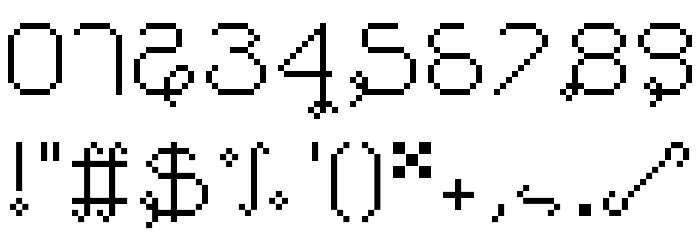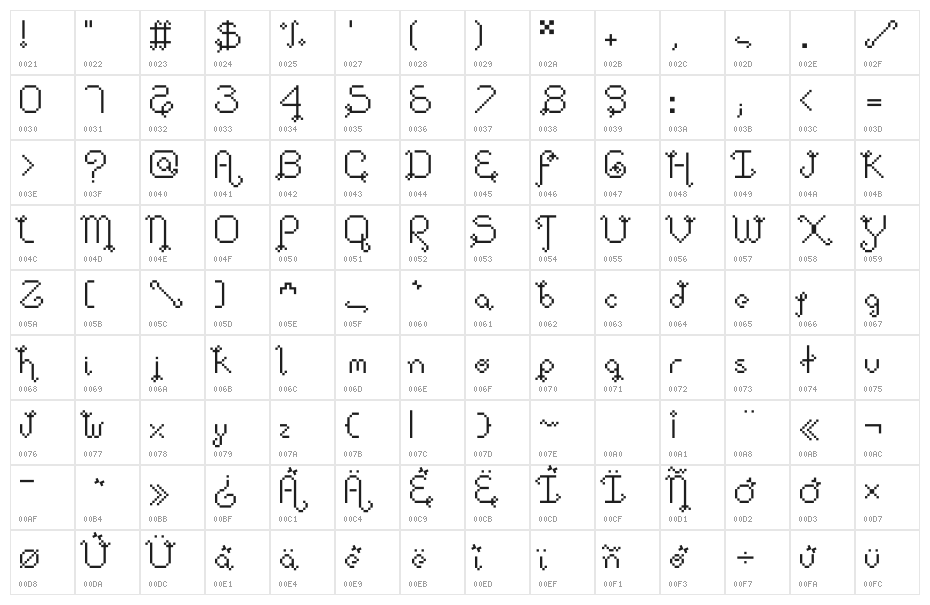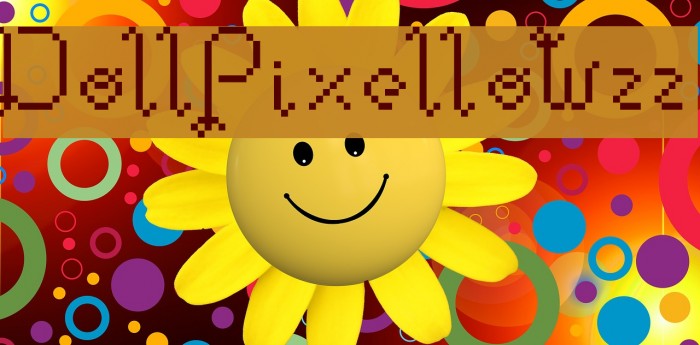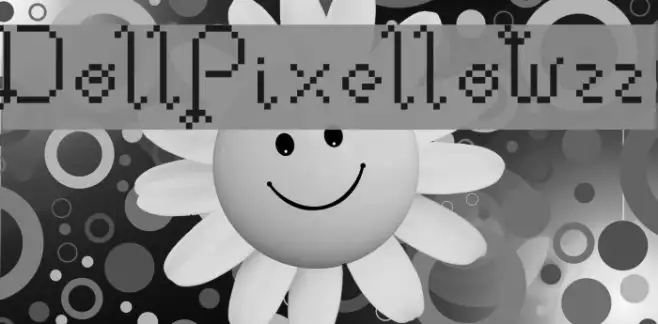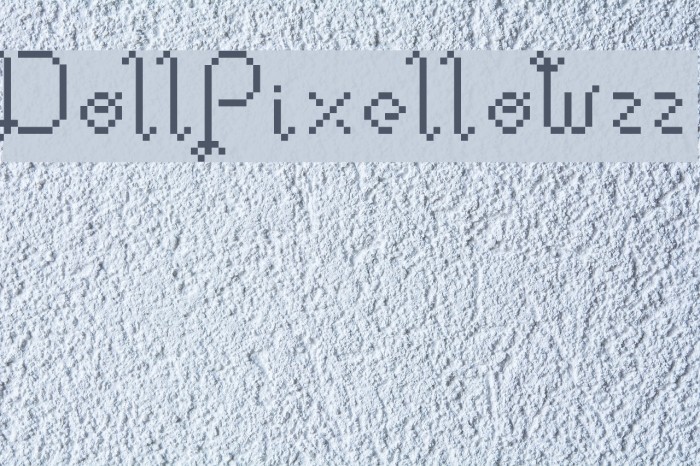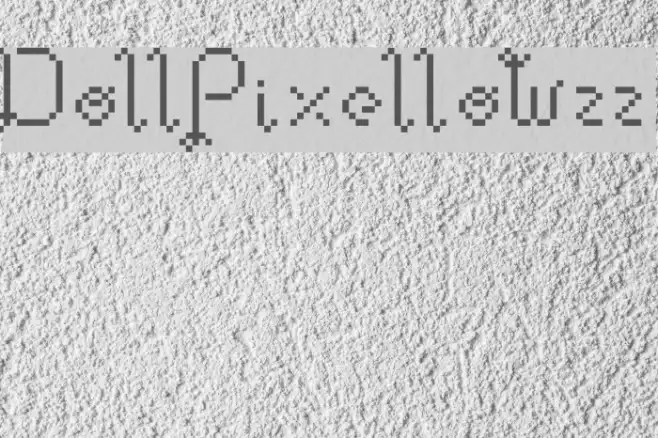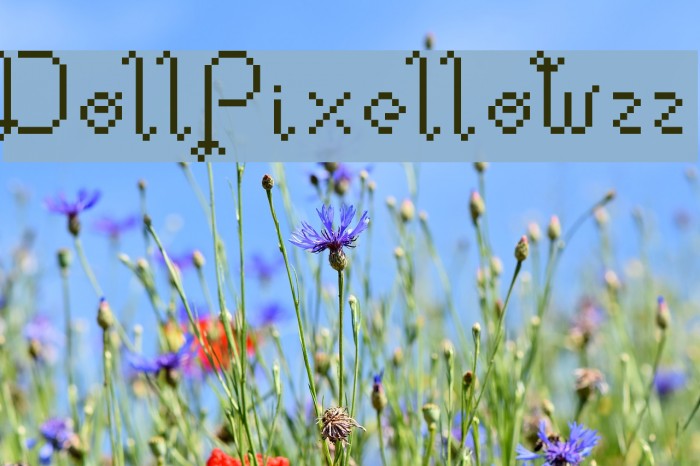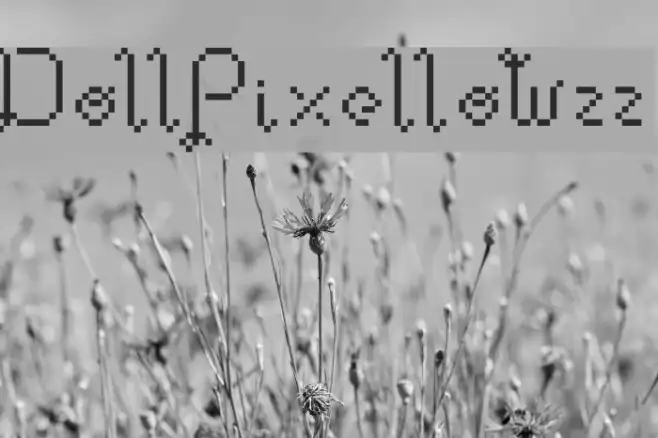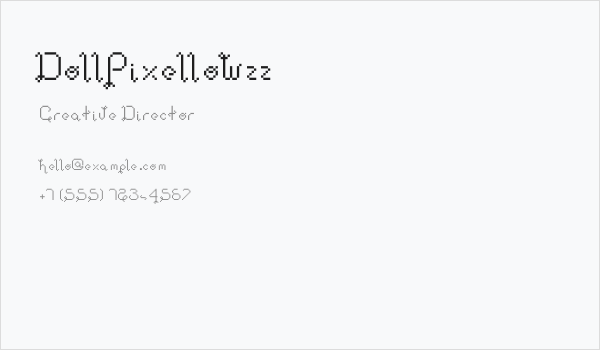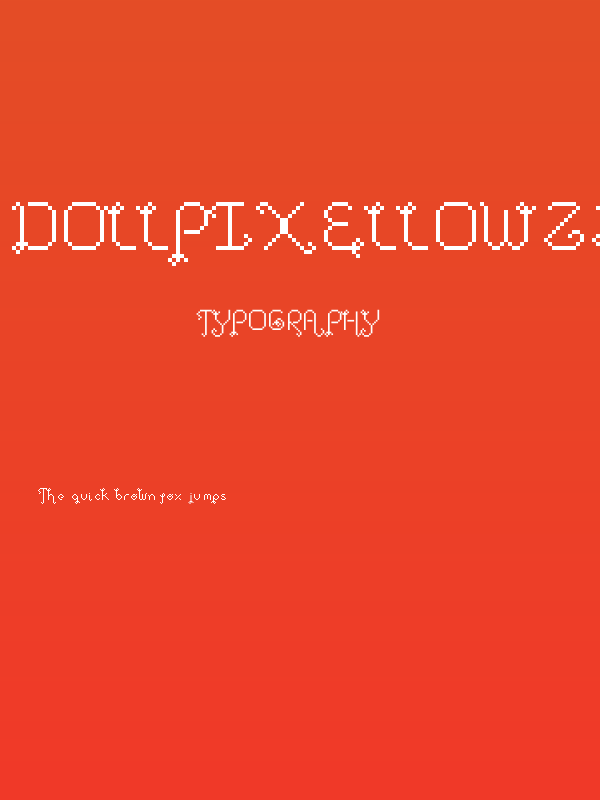
DollPixellowzz Font
DollPixellowzz Description
This font features a playful, pixelated design reminiscent of retro video games. Each character is composed of small squares, giving it a distinct digital aesthetic. The uppercase letters are bold and structured, while the lowercase letters maintain a consistent style with slight variations in height and width. Numbers and special characters follow the same pixelated theme, ensuring uniformity across all elements. The font's unique style makes it stand out, perfect for projects that require a nostalgic or quirky touch.
| Overall Style | Retro, Playful |
| Proposed Projects | Ideal for video game design, retro-themed posters, digital art projects, and creative branding. |